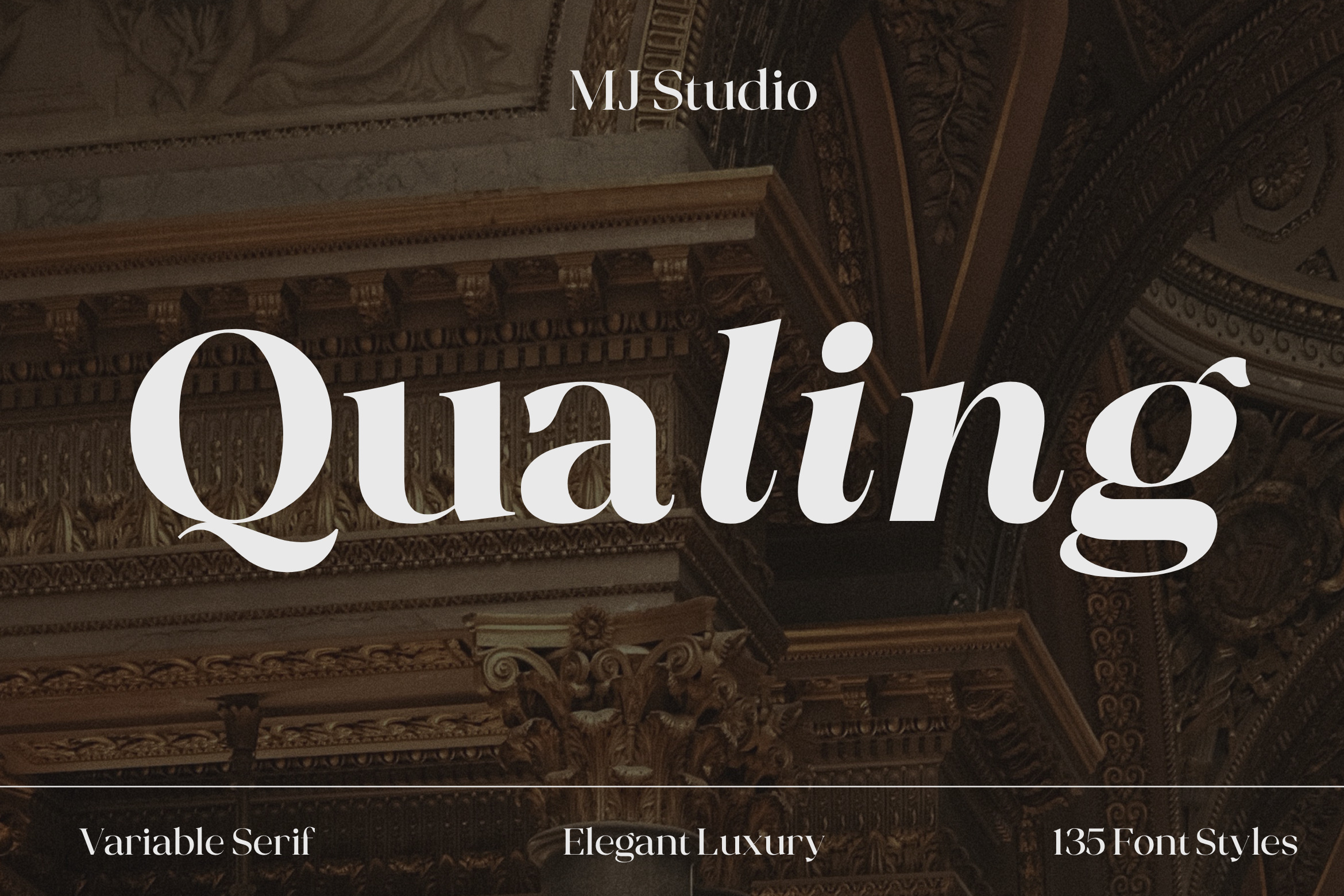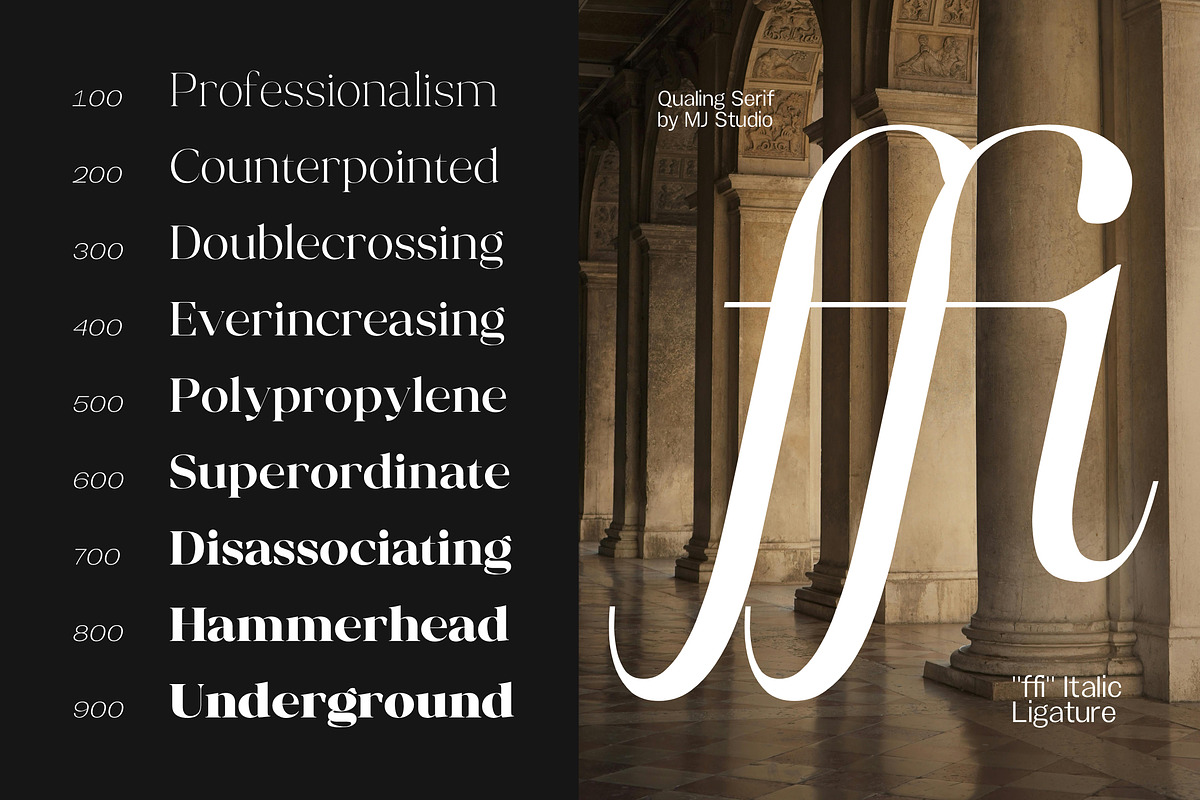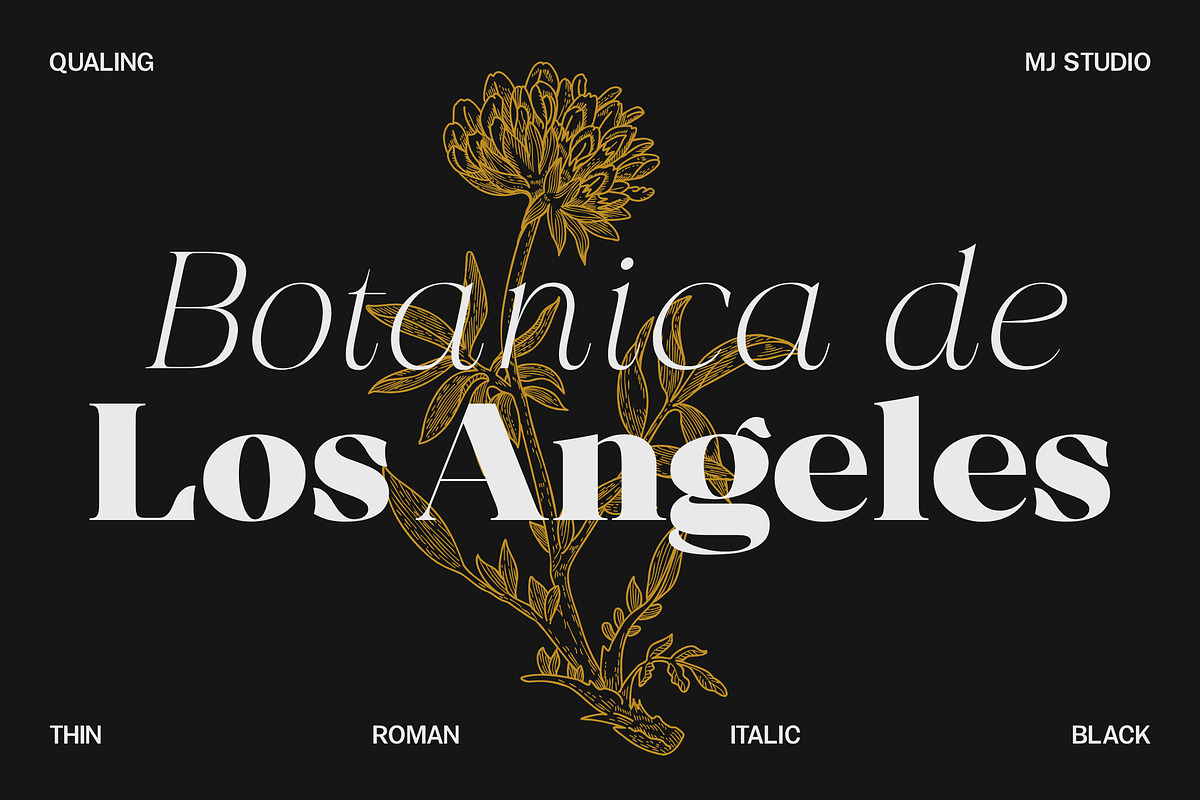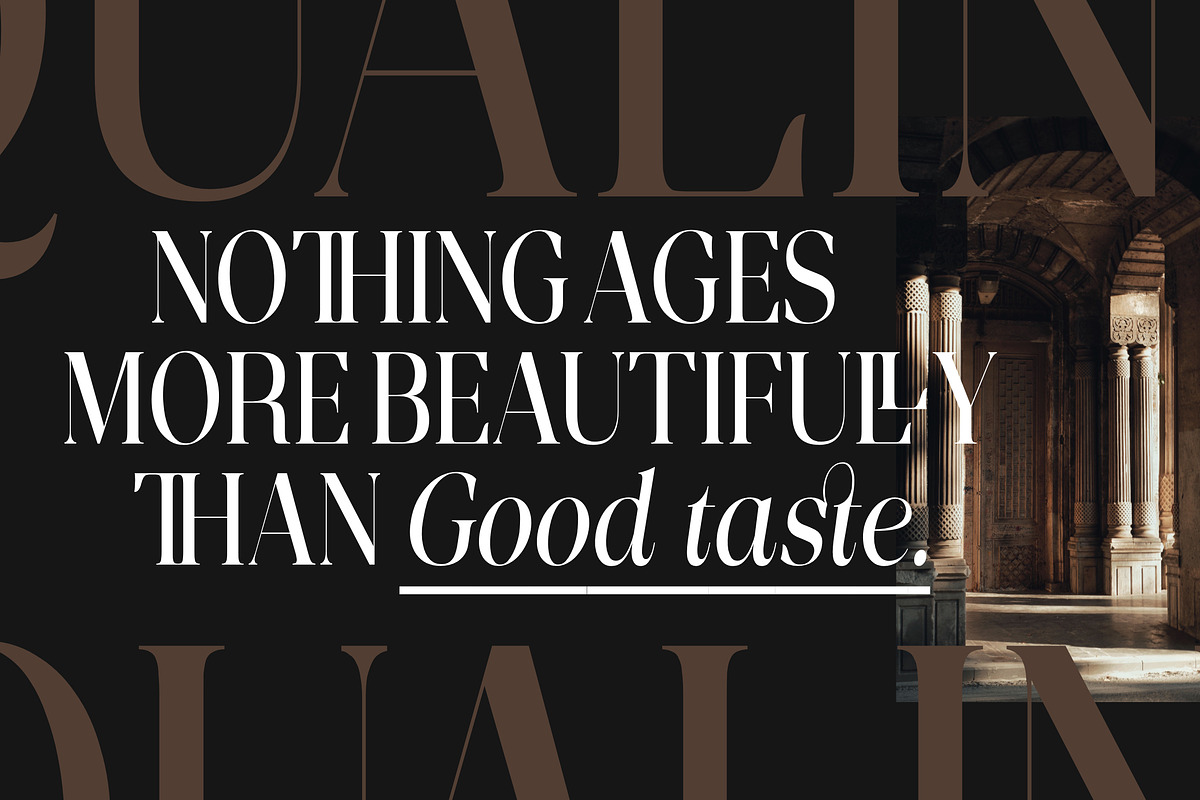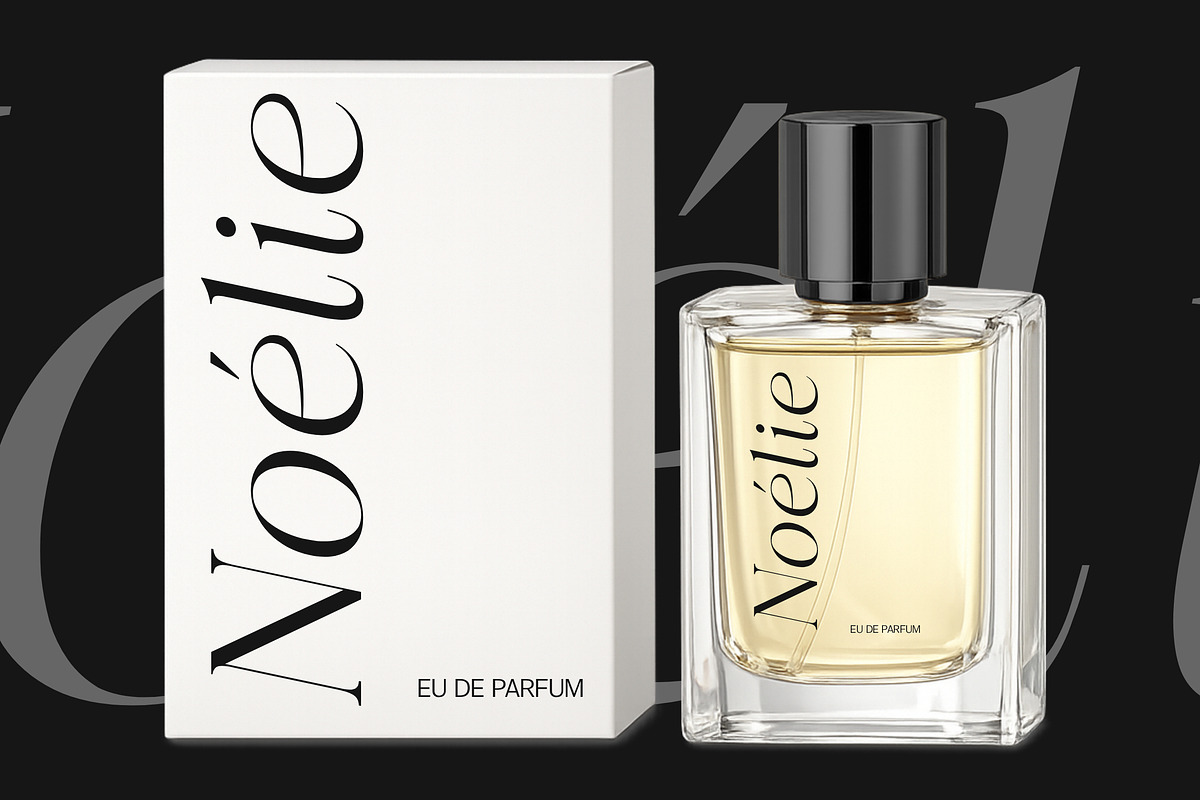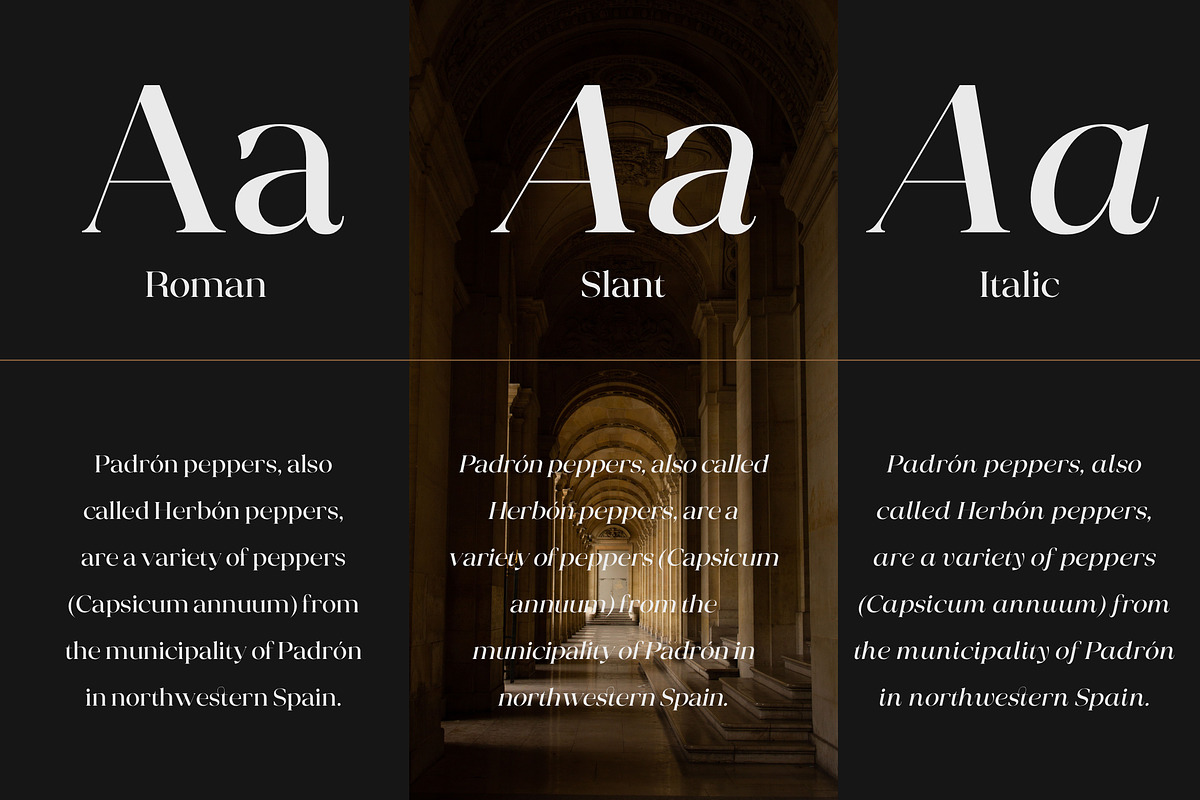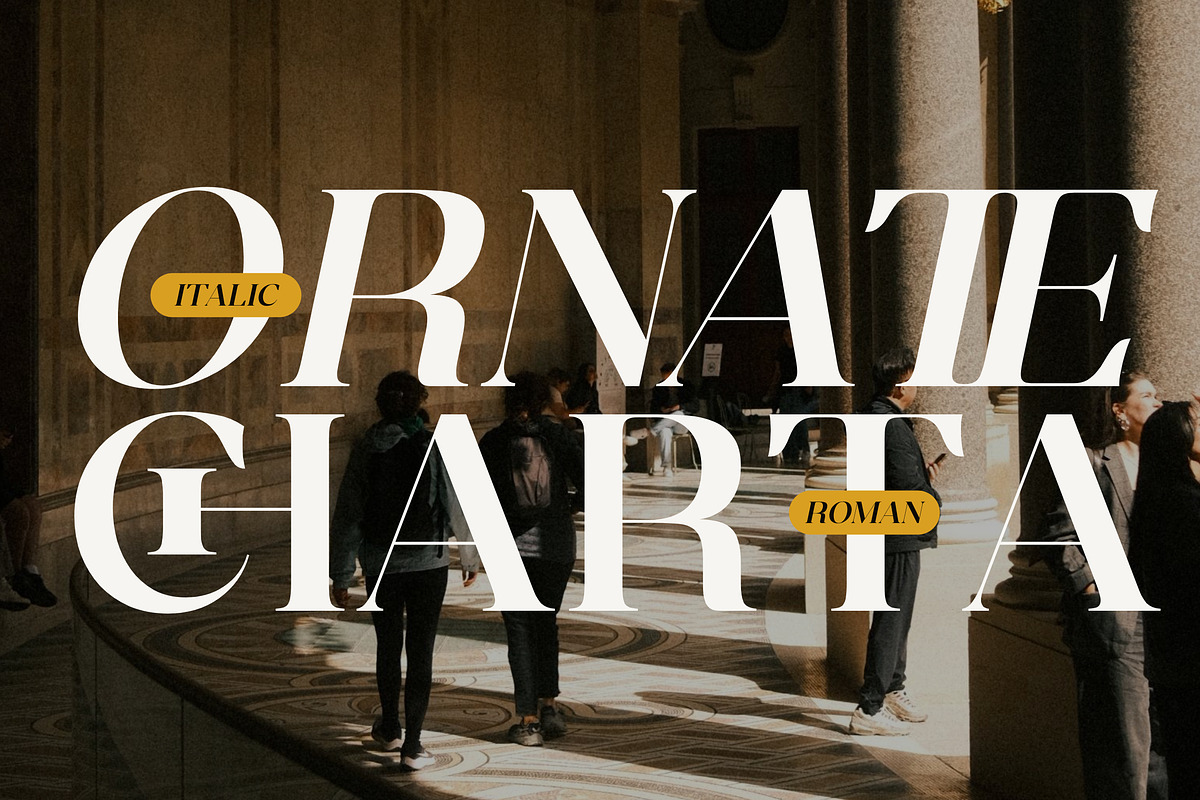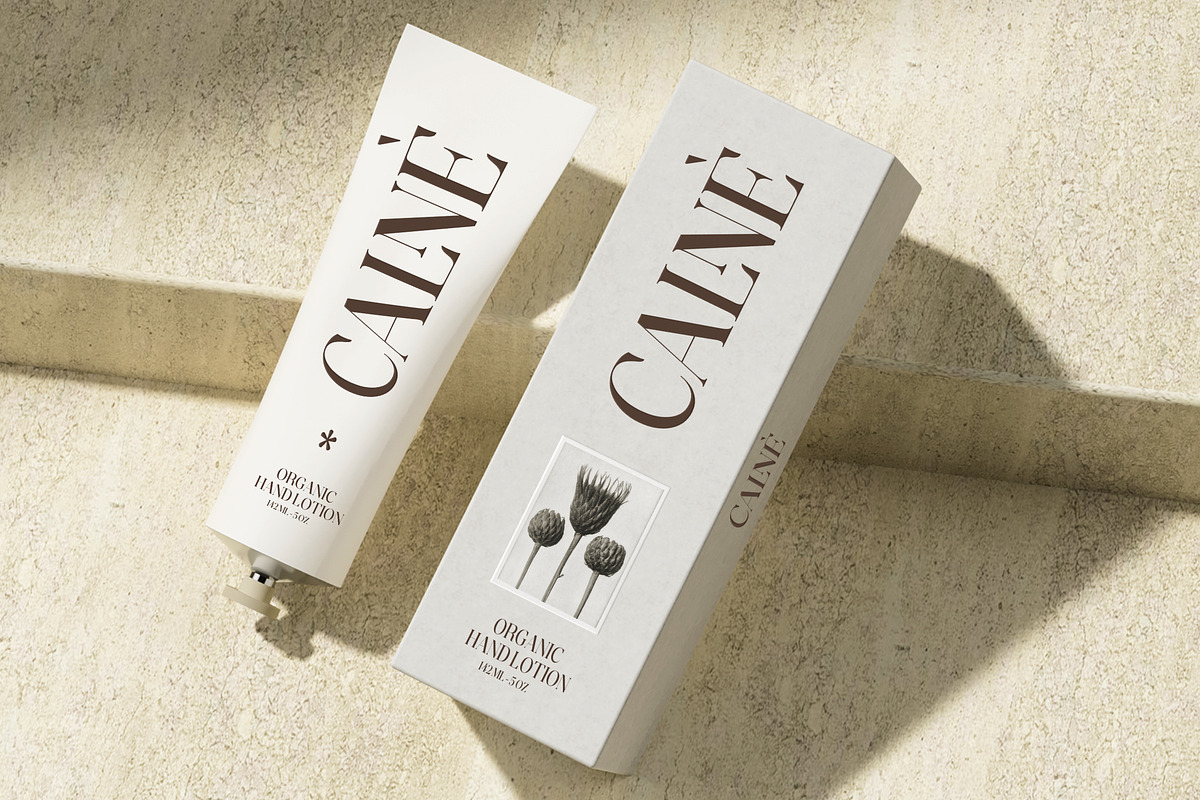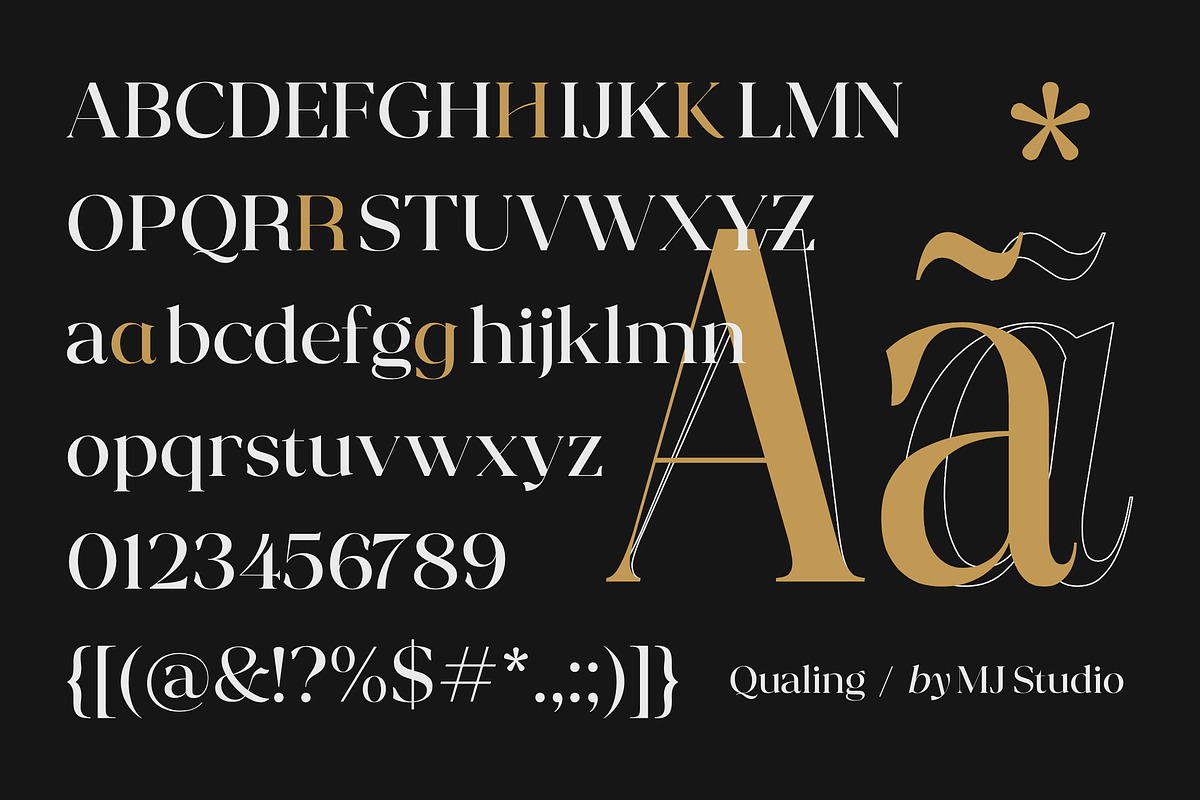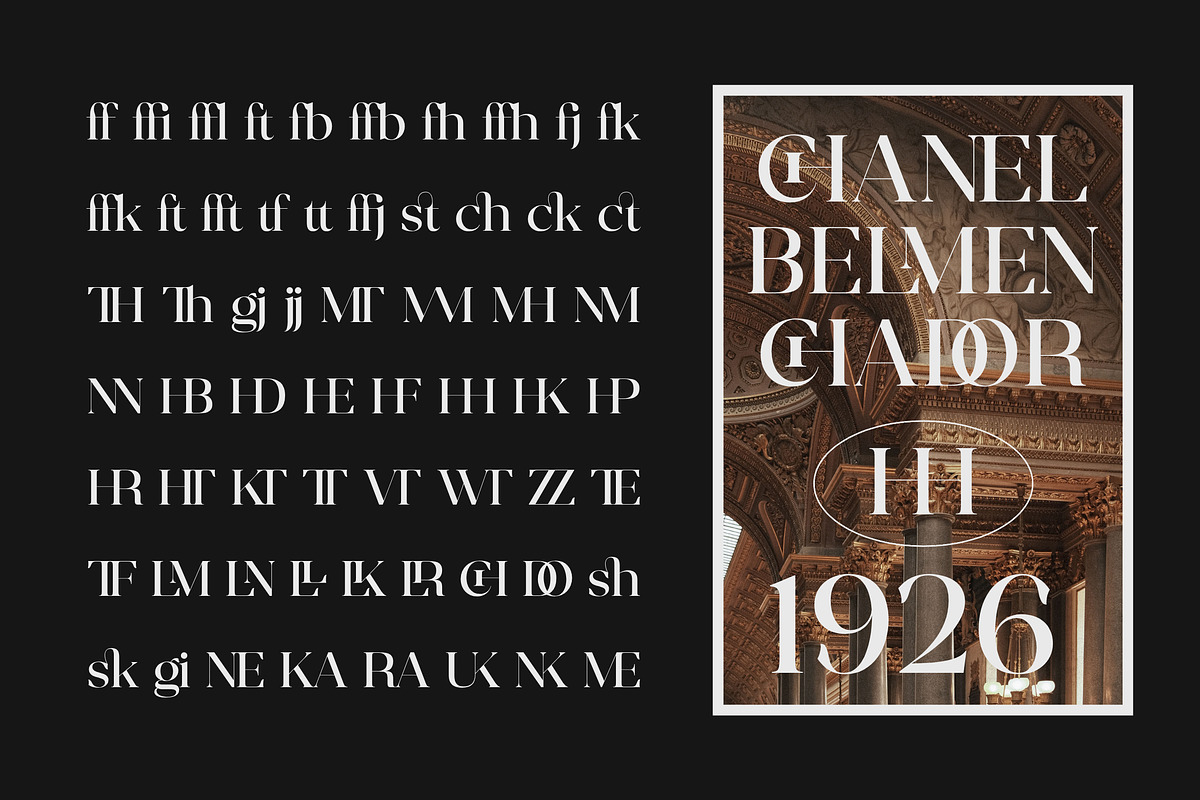
Qualing - Luxury Serif (135 Font)
Qualing is a contemporary luxury serif family that combines timeless elegance with exceptional versatility. Featuring refined proportions, high-contrast strokes, and sculpted serifs, it includes 135 font styles, a Variable Font, 61 professionally crafted ligatures, stylistic alternates, and Latin Pro language support. Designed for branding, editorial, fashion, packaging, publishing, and premium visual identities, Qualing delivers sophisticated typography with outstanding flexibility, readability, and lasting visual impact. Built as a complete serif system, Qualing gives designers the freedom to create everything from elegant editorial layouts to distinctive brand identities with a single, cohesive type family.